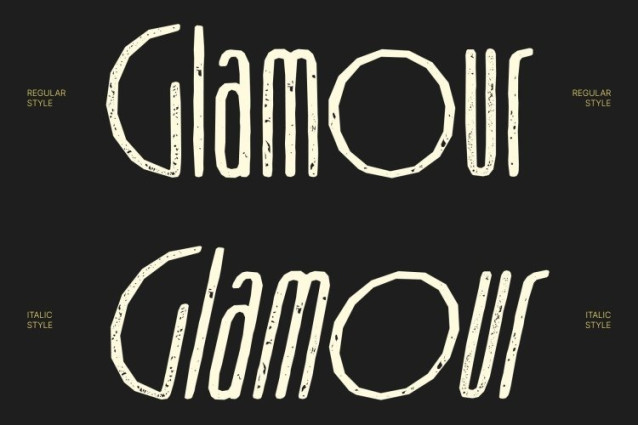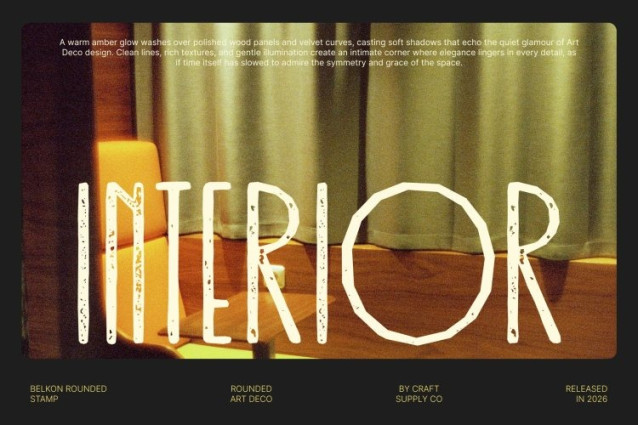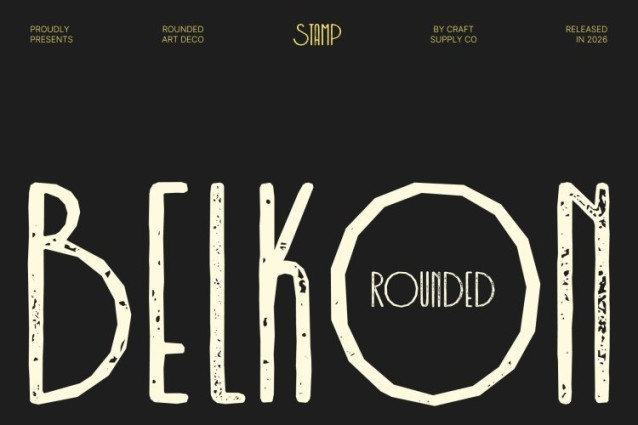
Belkon Rounded Stamp Font
Belkon Rounded Stamp Font This font blends the glamour of Art Deco with sleek, rounded modern forms now enriched with a subtle stamped texture. Its geometric precision remains refined and structured, while softly distressed edges and gentle ink variations introduce warmth and handcrafted authenticity. The result is a sophisticated typeface that feels both polished and expressive.
Smooth Geometry with Tactile Depth
The rounded terminals and balanced proportions give the font a friendly, luxurious presence. With the stamped finish, each letter gains a delicate vintage touch reminiscent of classic print techniques and heritage packaging. This textured detail enhances visual depth without overpowering the clean, modern silhouette.
Perfect for High-End and Statement Designs
This is ideal for luxury branding, elegant packaging, editorial headlines, boutique logos, and stylish promotional materials. Its combination of vintage Art Deco influence and contemporary rounded forms creates a memorable and visually engaging aesthetic suited for premium visual identities.
Modern Sophistication with Nostalgic Flair
By merging Art Deco elegance, modern minimalism, and a refined stamped effect, this font delivers timeless charm with distinctive personality. It’s the perfect choice for designers seeking a font that feels glamorous, smooth, and subtly vintage elevating every project with confident sophistication.